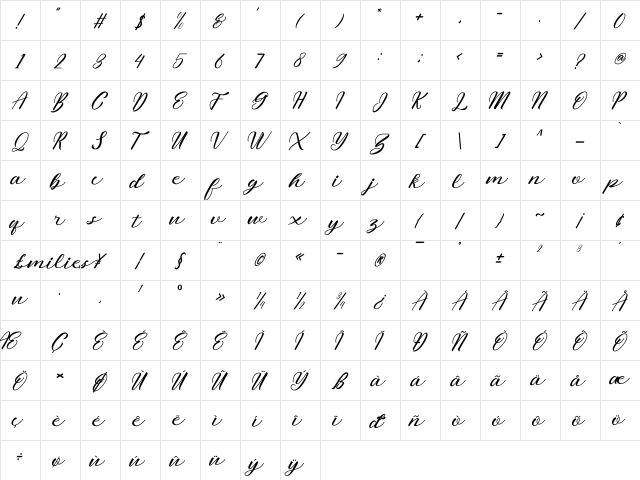
MiliesScript Regular
| Foundry | Nur Solikh / Astageni Type. |
| Designer | Nur Solikh |
Design Context for MiliesScript Typeface
MiliesScript brings a calligraphic fluidity to the page — its connecting strokes and expressive curves give it an unmistakably human quality.
Font Pairing: Combine MiliesScript with a simple geometric sans for maximum contrast — the tension between flowing curves and clean structure is a classic typographic pairing.
Pro Tip: Use MiliesScript for short runs of text — names, titles, or taglines. Extended body copy in script faces tires the eye quickly.